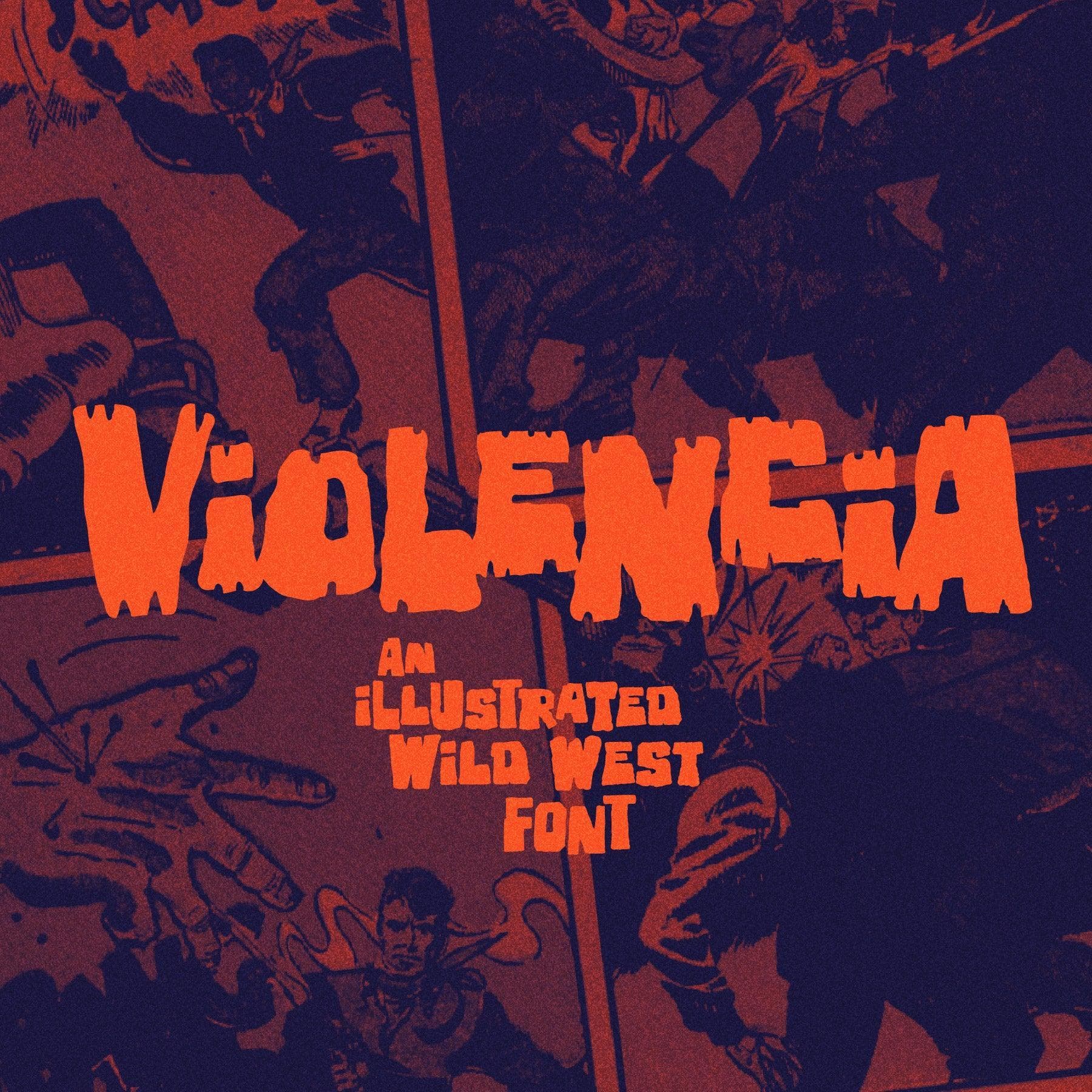
<p>Violencia is a hand-drawn font inspired by the legendary age of the Wild West and its tales of gunfights, train robberies, and blood vendettas. It’s an all-caps design that evokes the textured style of vintage Western movie posters, comics, and novels.</p> <p>The Violencia font family includes all-caps uppercase and lowercase characters, along with numerals, punctuation, symbols, and language support. It also comes with a complete set of alternative characters, all in the three unique styles of Distressed, Outline, and Block.</p> <p>Wingsart Studio Design Tip!<br>Mix the uppercase and lowercase characters and look for interesting shape combinations that might occur within the letters. Take advantage of all the alternatives too for a much more custom look that’ll be unique to your design.</p> <p>Contents:<br>Violencia: Regular Block<br>Violencia: Regular Distressed<br>Violencia: Regular Outline<br>Violencia: Alt Block<br>Violencia: Alt Distressed<br>Violencia: Alt Outline<br>Violencia: Symbols<br>OTF, TTF, and WOFF Formats<br>Preview PDF</p> <p>For more great illustrated fonts, browse our ever-growing collection at Wingsart Studio.</p> <p>Special thanks to the Digital Comic Museum for the background images used in these visuals. All artwork is in the public domain and used for visual purposes only. For more information, visit their website.</p>